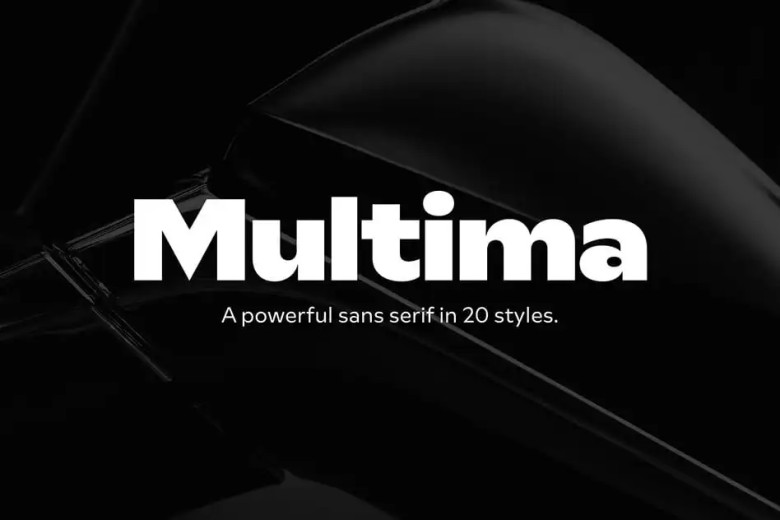
Multima Font Family
Multima Font
Multima Sans Serif Font is based on old-style grotesque fonts with new eyes and reflects them today. This is where this family stands up and brings the thought into the 21st century. It’s quick like a Formula 1 car and versatile like a real Swiss Army knife.
Multima Sans Serif Font Family